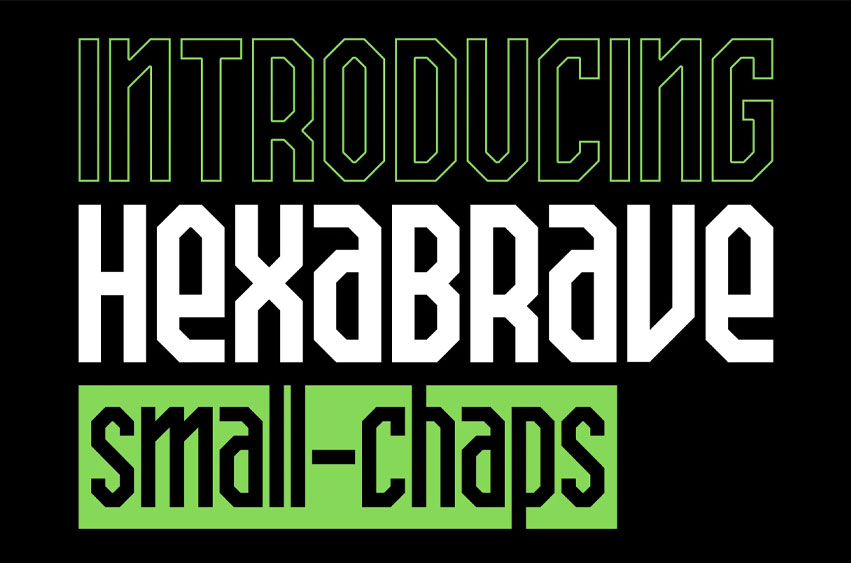
Hexa Brave Small Chaps Font
Hexa Brave Small Chaps Font is a suitable typeface for various purposes like logotype, signage, label, poster, dropcap, titles, letterhead, book cover and etc.
• Features: Small-Caps, ligature, Calt.
• Includes a range of multilingual characters.